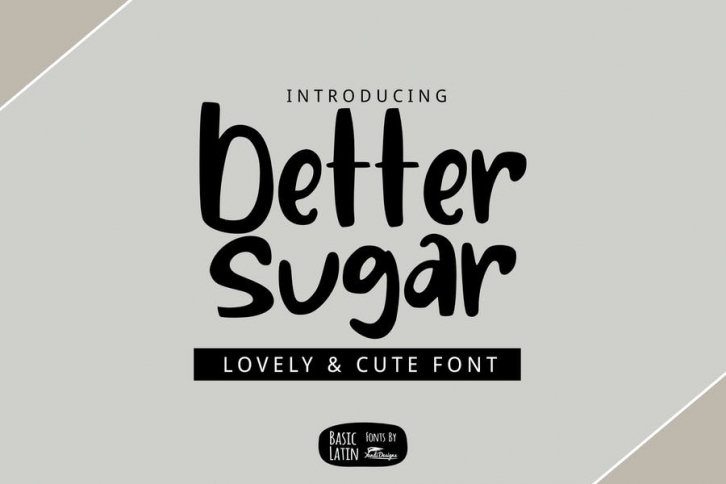
Better Sugar Font
Better Sugar font is simple cute multipurpose handmade font, suitable for many project children book, quotes, logo , heading , title etc.